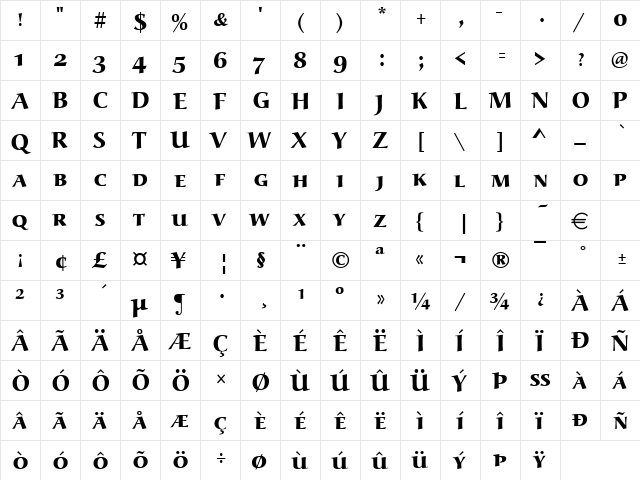
URWAlcuinSCTExtBol Regular Font Preview
URWAlcuinSCTExtBol Regular
Design Context for URWAlcuinSCTExtBol Typeface
URWAlcuinSCTExtBol is a composed and adaptable typeface that performs quietly and consistently across a wide range of design contexts.